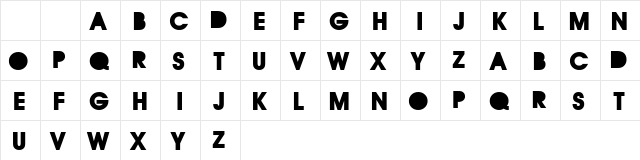
REBOARD Regular
| Foundry | BILLY ARGEL |
| Designer | BILLY ARGEL |
Design Context for REBOARD Typeface
REBOARD is a composed and adaptable typeface that performs quietly and consistently across a wide range of design contexts.